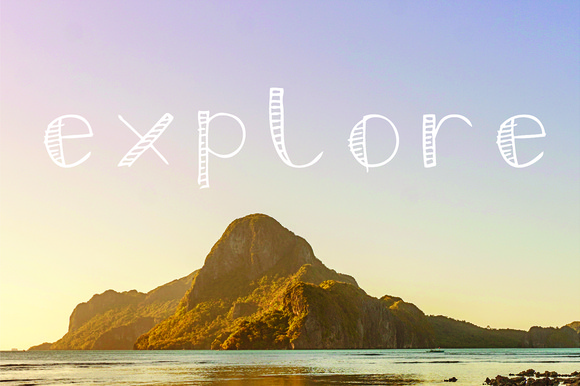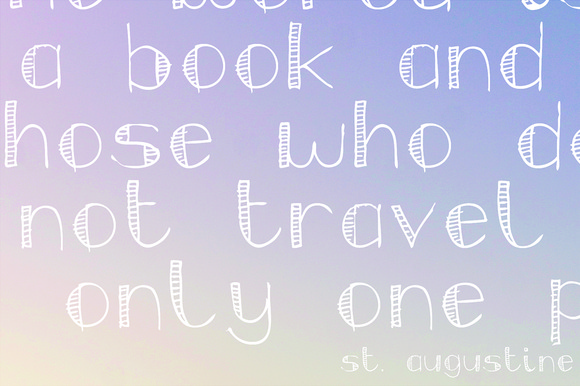
Jervis, a hand drawn font
A warm welcome to JERVIS a hand drawn font from ink drop
JERVIS is a lowercase font with numerals. It has a striped element creating a bold yet delicate design.